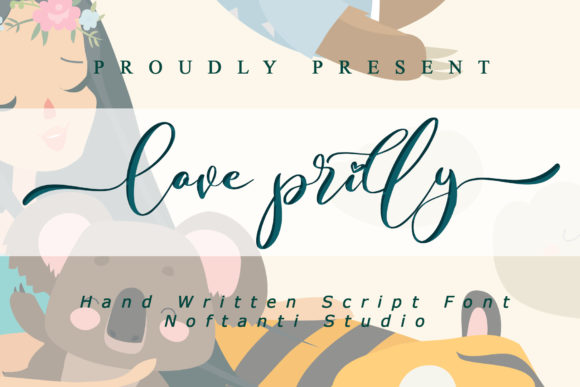
Introducing Love Prilly Font: The Enchanting Script for a Touch of Elegance
Step into the world of typography and let Love Prilly Font captivate your senses. This exquisite script, born from the creative mind of noftanti, is a masterpiece that will transform your designs into works of art. With its graceful curves, delicate strokes, and enchanting flow, Love Prilly Font is the perfect choice for adding a touch of elegance and sophistication to your creations.
Unleash Your Creativity with Endless Design Possibilities
Love Prilly Font is an incredibly versatile font that lends itself seamlessly to a diverse range of design projects. Whether you're crafting logos, branding materials, wedding invitations, social media graphics, or any other creative endeavor, this font will elevate your designs to new heights. Its carefully crafted characters dance across the page, creating a visual symphony that captivates the eyes and ignites the imagination.
Love Prilly's Allure: A Beauty That Speaks Volumes
The beauty of Love Prilly Font lies in its intricate details. Each letter is a work of art, meticulously designed to convey a sense of refinement and charm. The flowing lines and elegant swashes add a touch of whimsy and romance, making this font perfect for projects that demand a touch of personality and style. Its PUA encoding ensures effortless access to a treasure trove of glyphs and swashes, allowing you to unleash your creativity without limits.
Experience the Magic of Love Prilly Font
Love Prilly Font is more than just a collection of characters; it's an experience that will transform your design journey. Immerse yourself in the world of typography and let this enchanting script guide you towards creating designs that leave a lasting impression. Its versatility and timeless appeal make it a must-have for designers seeking to add a touch of magic to their work.